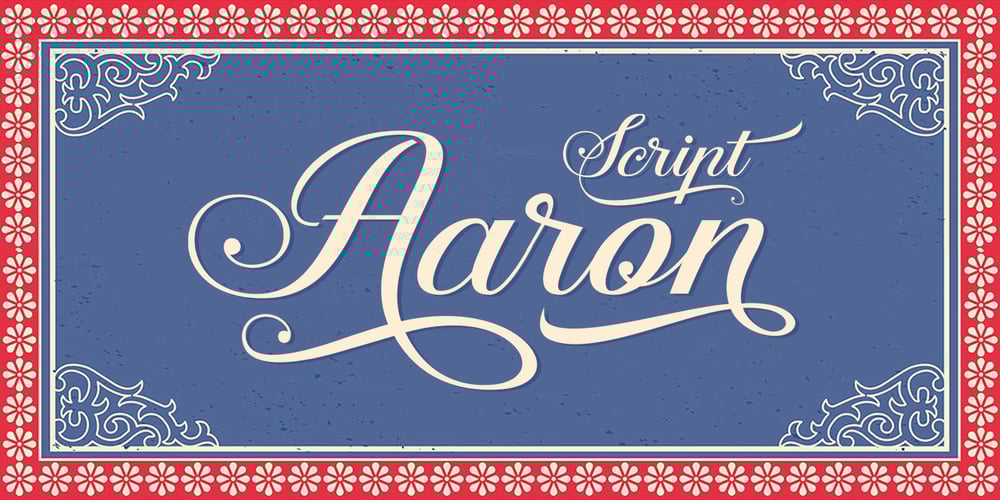
Aaron Script
Aaron Script font
Aaron Script Font Family was designed by Seniors Studio and published by Seniors Studio. Aaron Script contains 1 styles and family package options. Aaron Script is highly legible Script typeface, a simply beautiful, classic, elegant and fun script font. With almost 400 glyphs and contain with opentype features. Stylistic alternates, Ornament, swash and more. Can be used for various purposes.such as logos, wedding invitation, t-shirt, letterhead, signage, news, posters, badges etc. To enable the OpenType Stylistic alternates, you need a program that supports OpenType features such as Adobe Illustrator CS, Adobe Indesign & CorelDraw X6-X7.